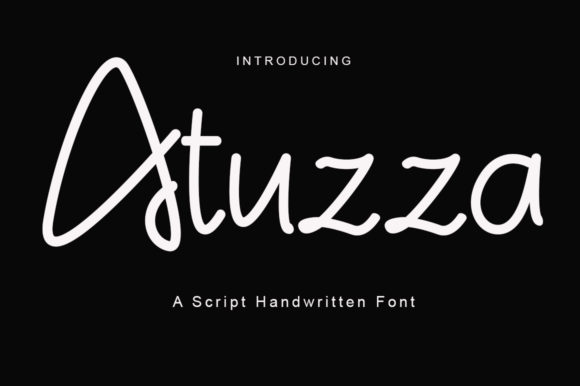
The Atuzza Font: A Bold Script for Creative Projects
Atuzza is a versatile font that can be used for a wide range of creative projects, from writing on books or product labels, to business cards, invitation cards, and promotional advertisements. In this article, we’ll take a closer look at the Atuzza font, its features, and how to use it in different design platforms.
An Honest Review of Atuzza Font
What I Love About Atuzza Font
• ✨ Bold and eye-catching: The Atuzza font is perfect for making a statement with your designs.
• ✅ Highly legible: Despite its bold style, the font is easy to read, even in smaller sizes.
• 💫 Versatile: Atuzza can be used for a wide range of projects, from formal to informal designs.
While the Atuzza font is amazing, there are a few things to keep in mind:
• 🤔 Limited use in body text: Due to its bold style, Atuzza may not be the best choice for long blocks of body text.
• ⚠️ Glyph limitations: Some users have reported that the font could benefit from more glyph options.
The Designer Inspiration Behind Atuzza
The Atuzza font was designed with the goal of creating a bold, eye-catching script font that could be used for a wide range of creative projects. The designer drew inspiration from classic script fonts, but with a modern twist. The result is a font that’s both elegant and bold, perfect for making a statement with your designs.
Q: What type of projects is Atuzza best suited for?
A: Atuzza is perfect for creative projects that require a bold, eye-catching font, such as product labels, business cards, invitation cards, and promotional advertisements.
Q: Can I use Atuzza for body text?
A: While Atuzza is highly legible, its bold style may not be the best choice for long blocks of body text. It’s better suited for headings and titles.
Q: Does Atuzza support OpenType features?
A: Yes, Atuzza supports OpenType features like ligatures and stylistic alternates, which can be used to add more personality to your text.